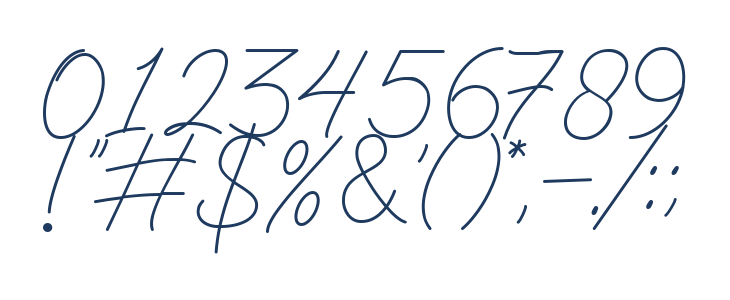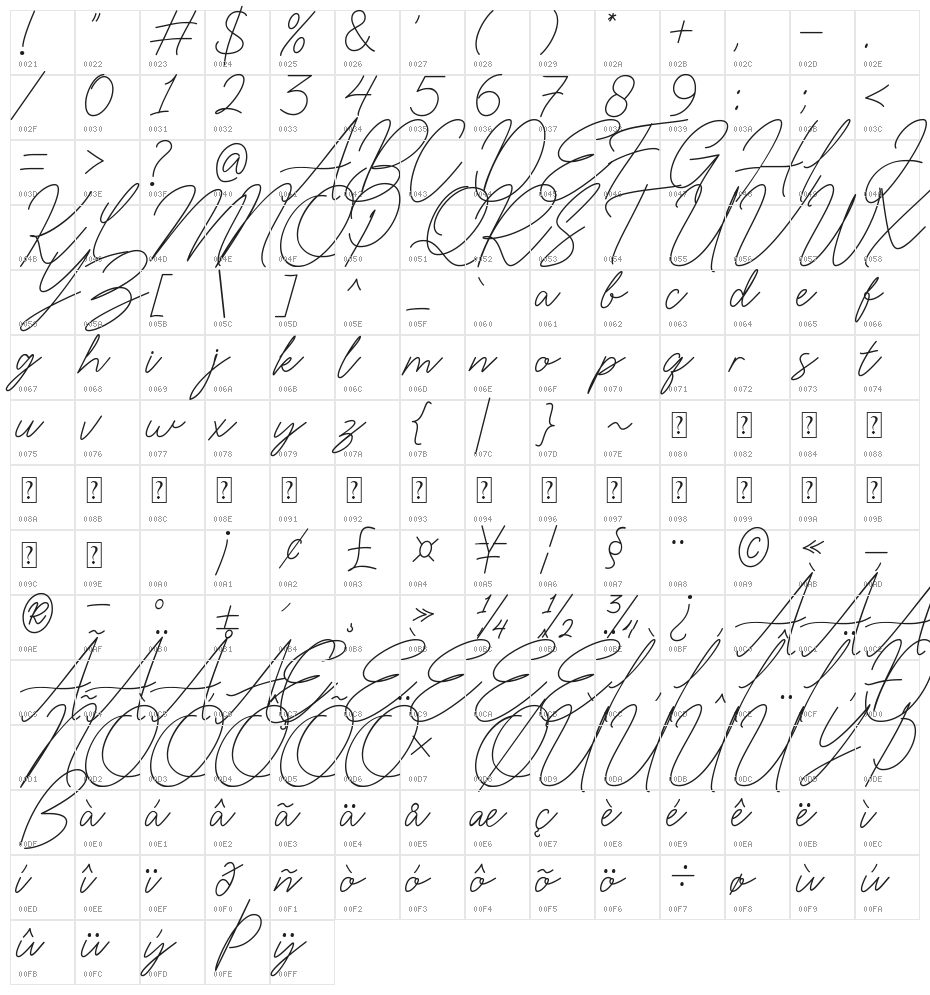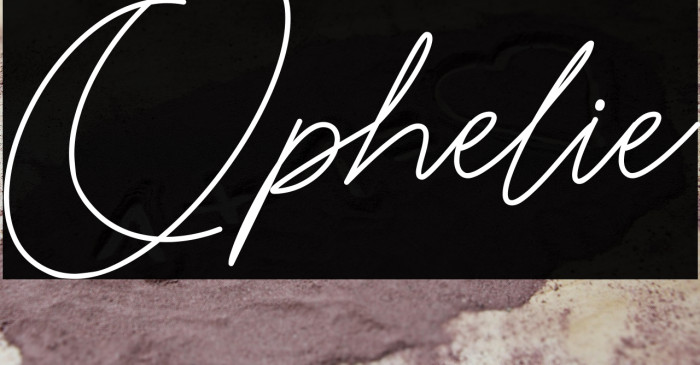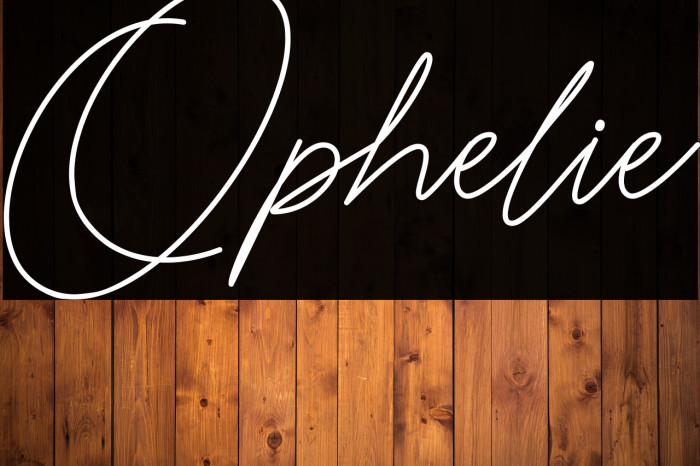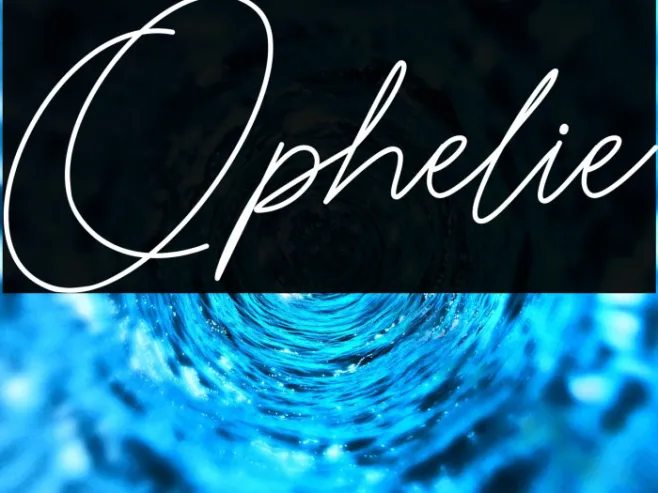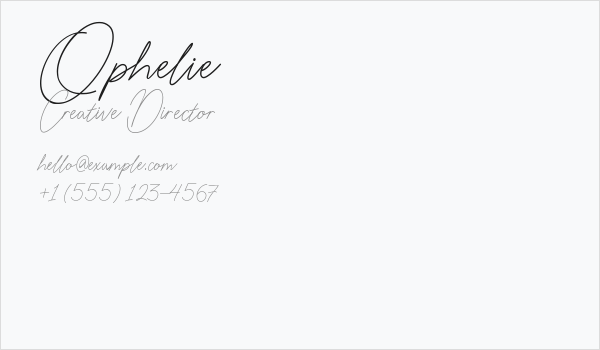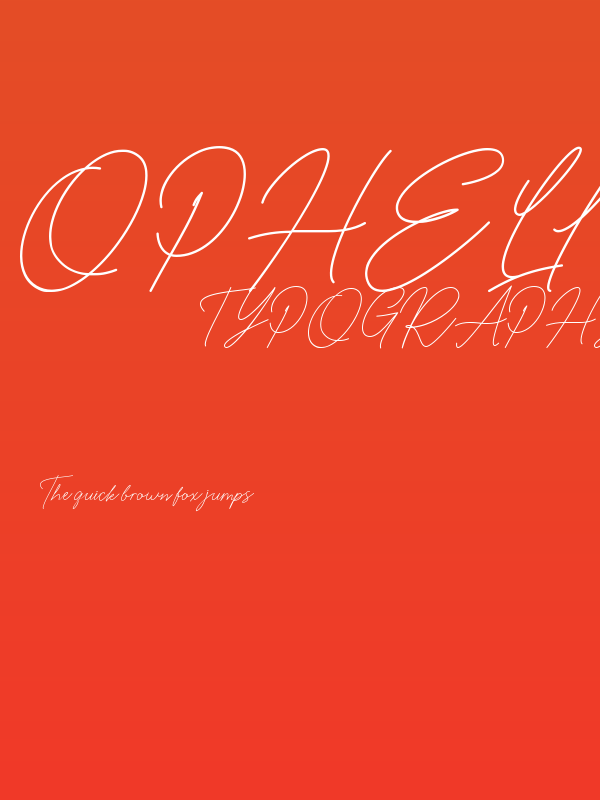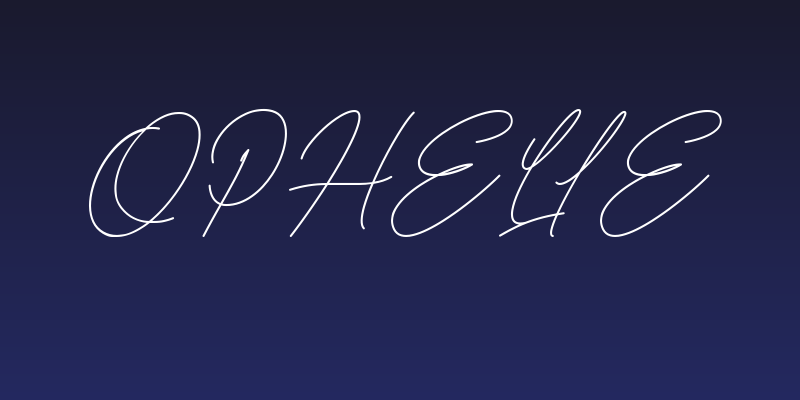
Ophelie Font
Ophelie Description
This elegant script font features flowing, cursive letters with a refined and sophisticated appearance. The uppercase letters are tall and slender, with graceful loops and curves that convey a sense of fluidity and movement. The lowercase letters maintain a consistent style, with smooth connections between characters, enhancing the font's readability and charm. The numerals are designed to complement the overall script style, maintaining the same fluidity and elegance. Special characters are thoughtfully integrated, ensuring versatility in various design contexts. This font's delicate strokes and balanced proportions make it ideal for projects that require a touch of elegance and sophistication.
| Use Case | Logos, Invitations, Greeting cards |
| Proposed Projects | Ideal for wedding invitations, elegant branding, personal stationery, and romantic quotes. |